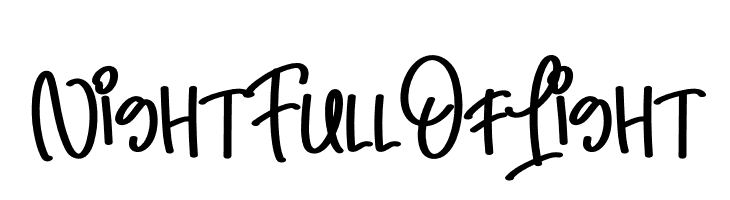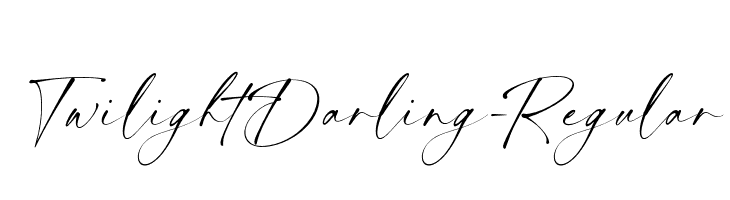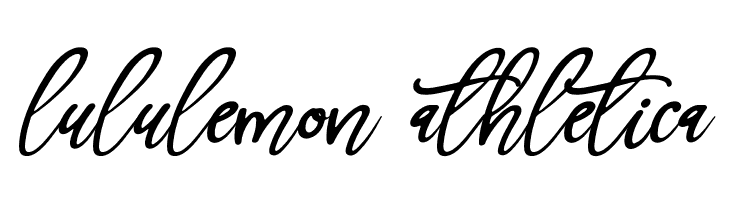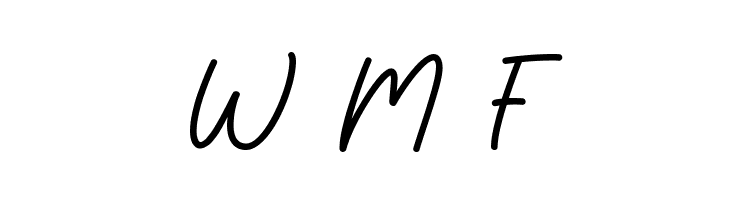
( Fonts by Zansari )
A casual, handwritten cursive font with smooth, flowing lines.
( Fonts by MJType )
A playful, handwritten font with smooth, flowing strokes and a casual style.
( Fonts by Hanoded )
A playful, hand-drawn font with coffee pot symbols, ideal for creative projects.
( Fonts by Maulana Creative )
A modern, elegant handwritten font with a cursive style.
( Fonts by RaisProject )
A delicate, handwritten cursive font with a natural and flowing style.
( Fonts by StringLabs Creative Studio )
A dynamic and elegant script font with fluid, sweeping strokes and a handwritten appearance.
( Fonts by Letterena Studios )
A bold, flowing script font with elegant curves and a dynamic style.
( Fonts by Typocrisy Studio )
A playful, handwritten font with rounded, consistent strokes and a casual vibe.
( Fonts by Scratchones )
A playful, handwritten font with an elegant and whimsical style.
( Fonts by Alit Design )
An elegant and flowing script font with graceful, cursive letterforms.
( Fonts by Mariyana )
A charming handwritten font with fluid, continuous strokes and an elegant, personal feel.
( Fonts by scratchones )
A bold, playful script font with a handwritten style.
( Fonts by Sensatype Studio )
A lively and elegant script font with smooth, flowing strokes.
( Fonts by Storytype Studio )
An elegant and flowing script font with delicate, graceful strokes.
( Fonts by Skiiller Studio )
A bold, playful handwritten font with thick strokes and a casual, dynamic style.
( Fonts by Scratchones )
A playful, handwritten font with smooth, flowing strokes and a casual elegance.
( Fonts by Letterena Studios )
A dynamic and expressive handwritten cursive font with elegant flourishes.
( Fonts by Sheilla Fristella )
A playful, bold handwritten font with rounded, consistent strokes.
( Fonts by Riki )
An elegant, flowing script font with a natural handwritten style.
( Fonts by Sara Lombardo )
A playful, bold font with rounded, thick strokes and a whimsical style.
( Fonts by Etik Fatimah )
A playful, handwritten cursive font with elegant loops and curves.
( Fonts by Origin Type )
A playful, casual handwritten font with rounded, consistent strokes.
( Fonts by Rantautype )
A lively, expressive handwritten font with fluid, dynamic strokes.
( Fonts by Qwrtype Foundry )
A playful and elegant handwritten font with fluid, connected strokes.
( Fonts by Makashi )
A playful and elegant script font with a handwritten touch.
( Fonts by Makashi )
A playful, handwritten font with rounded edges and consistent height.
( Fonts by Paily Studio )
A flowing, elegant script font with a natural handwritten style.